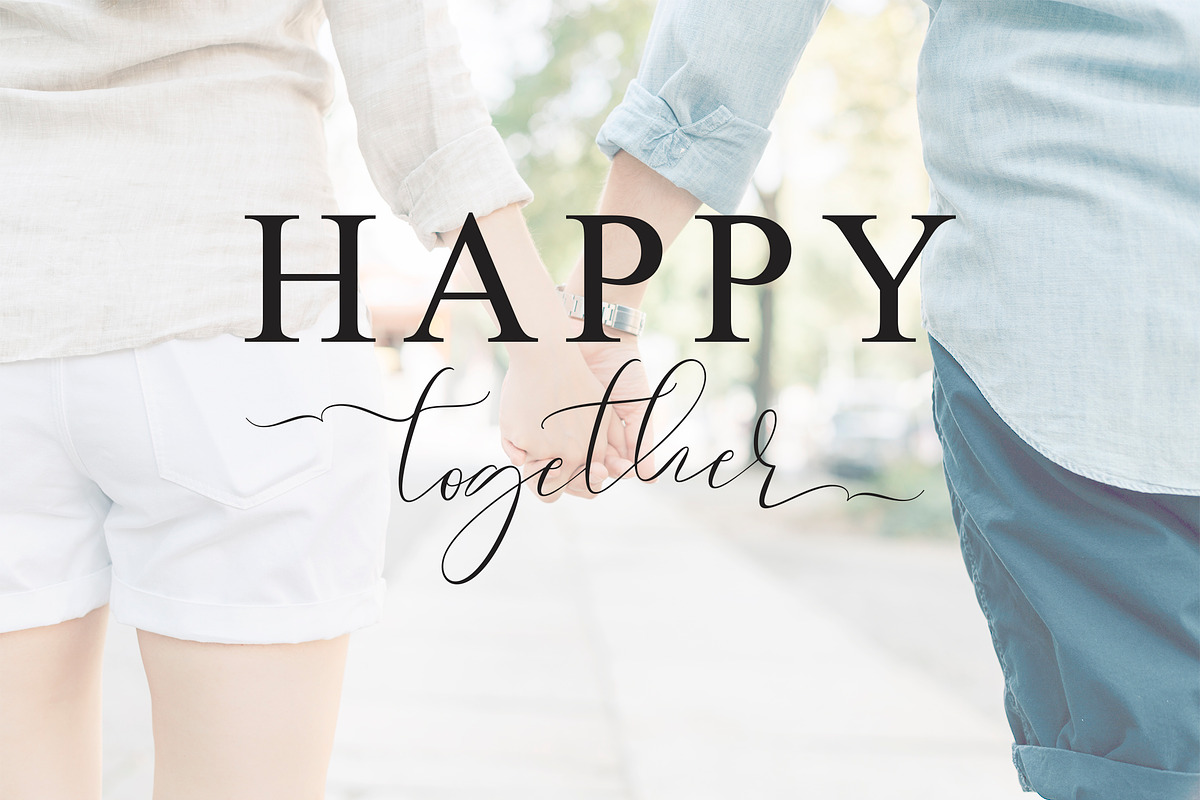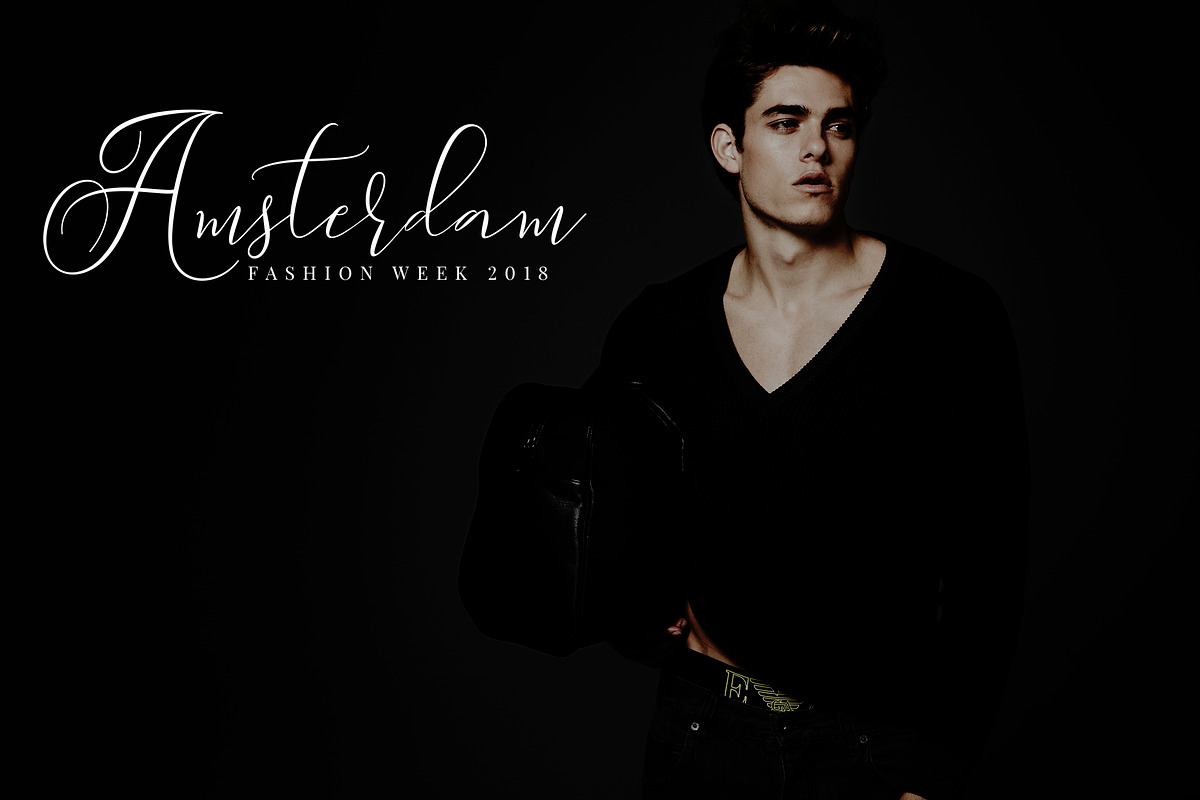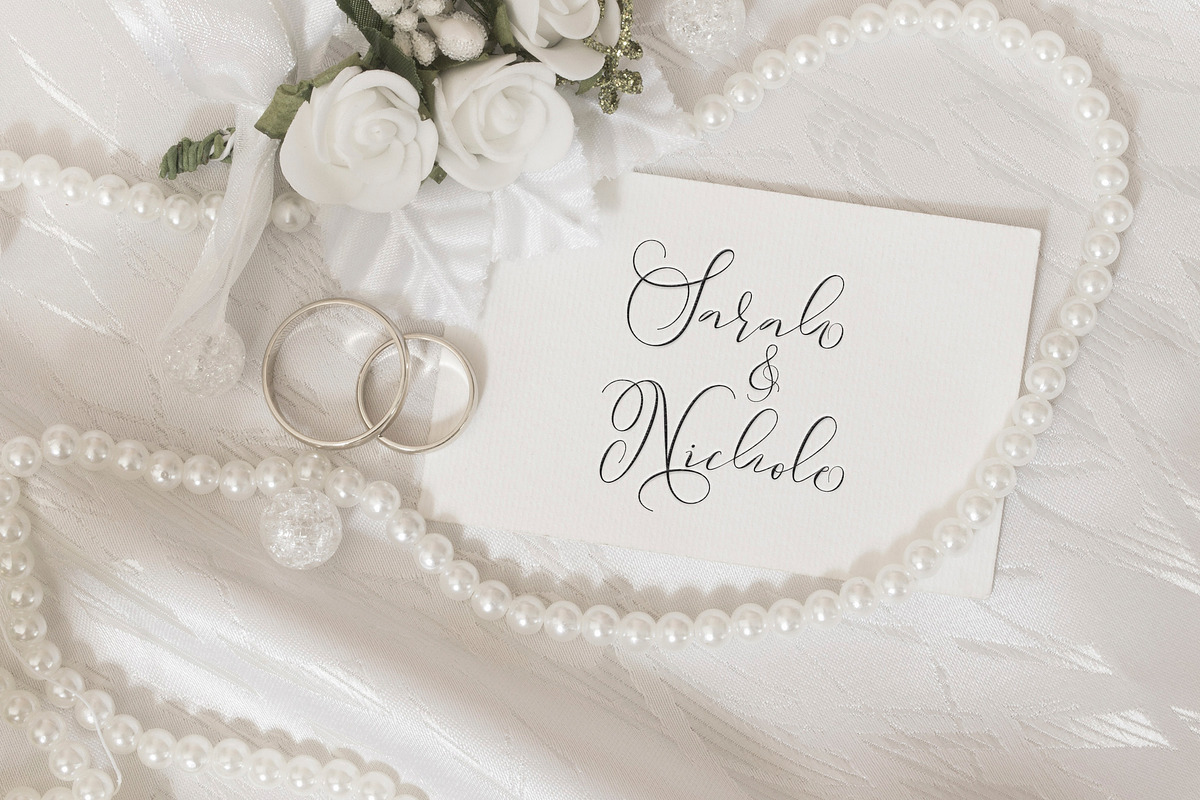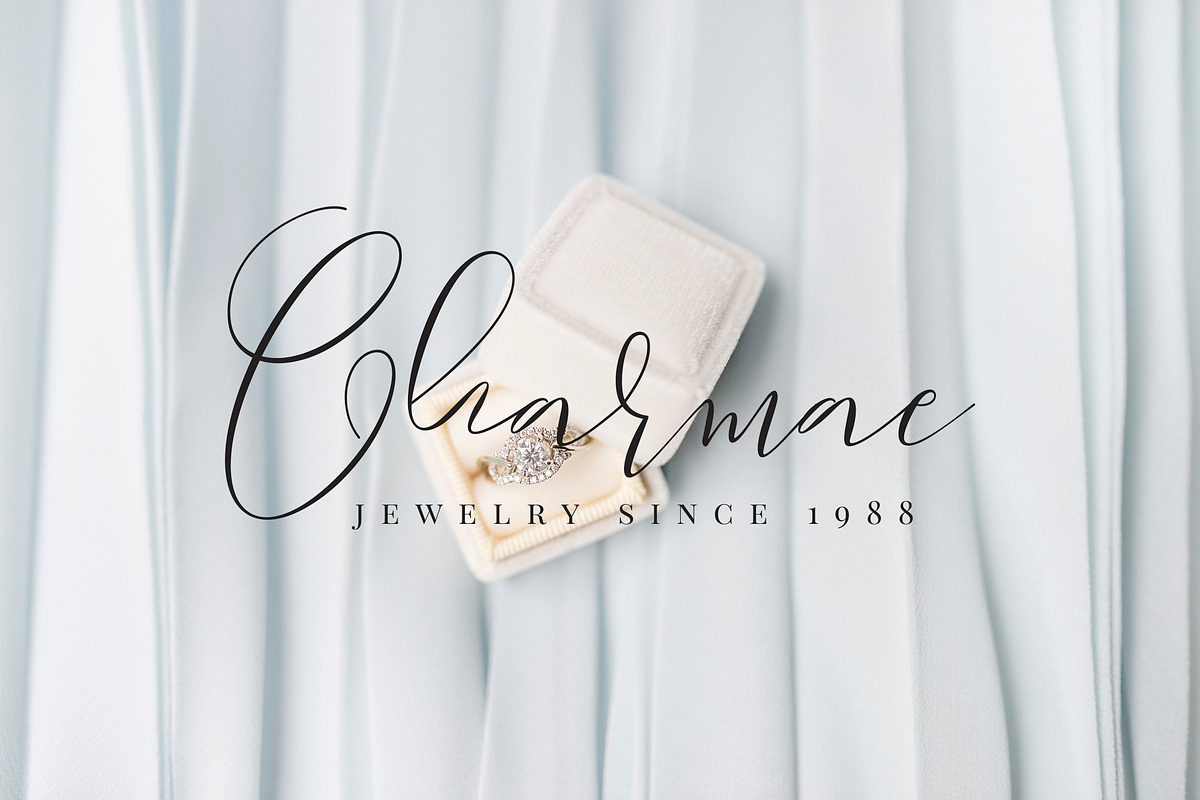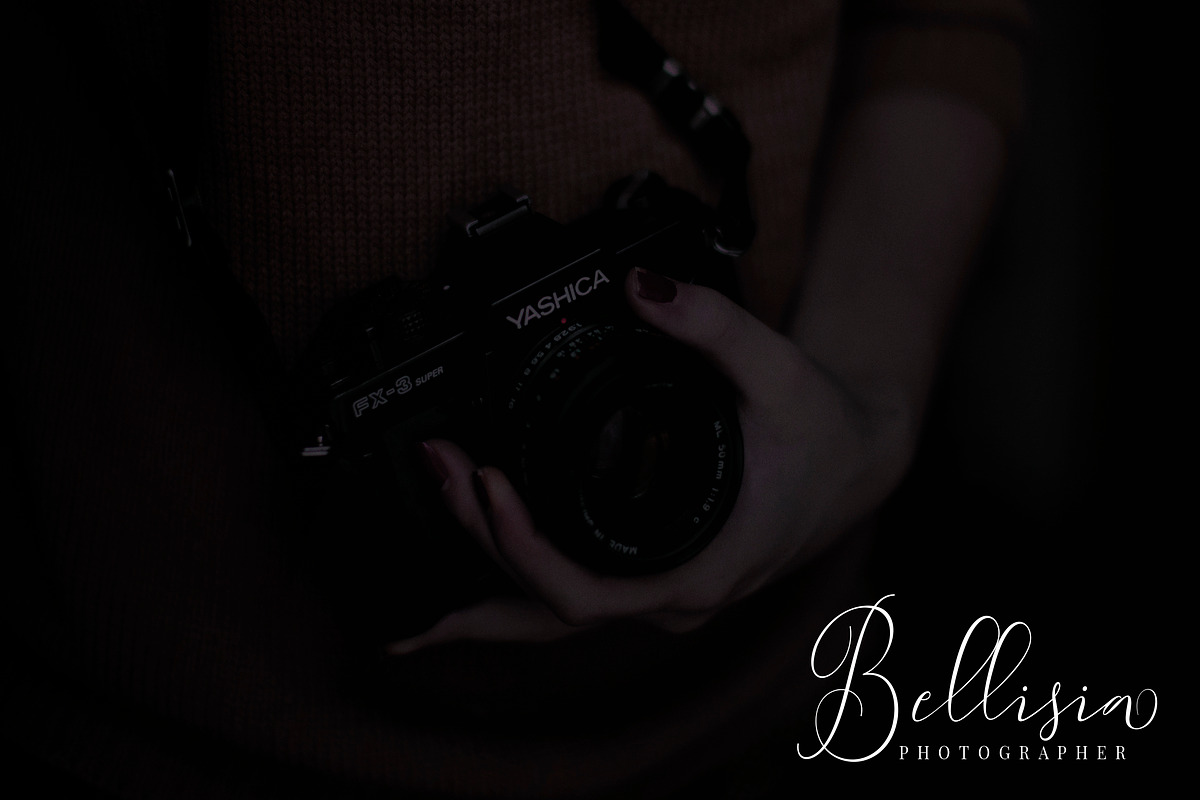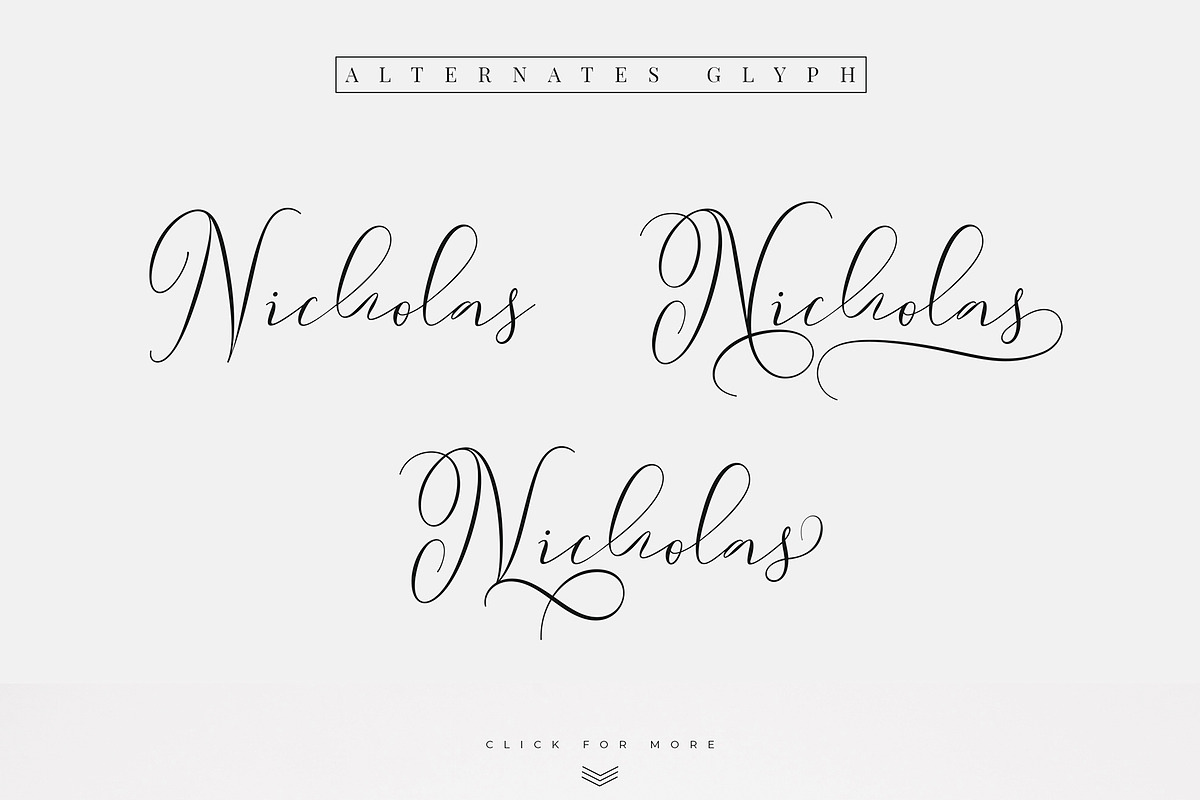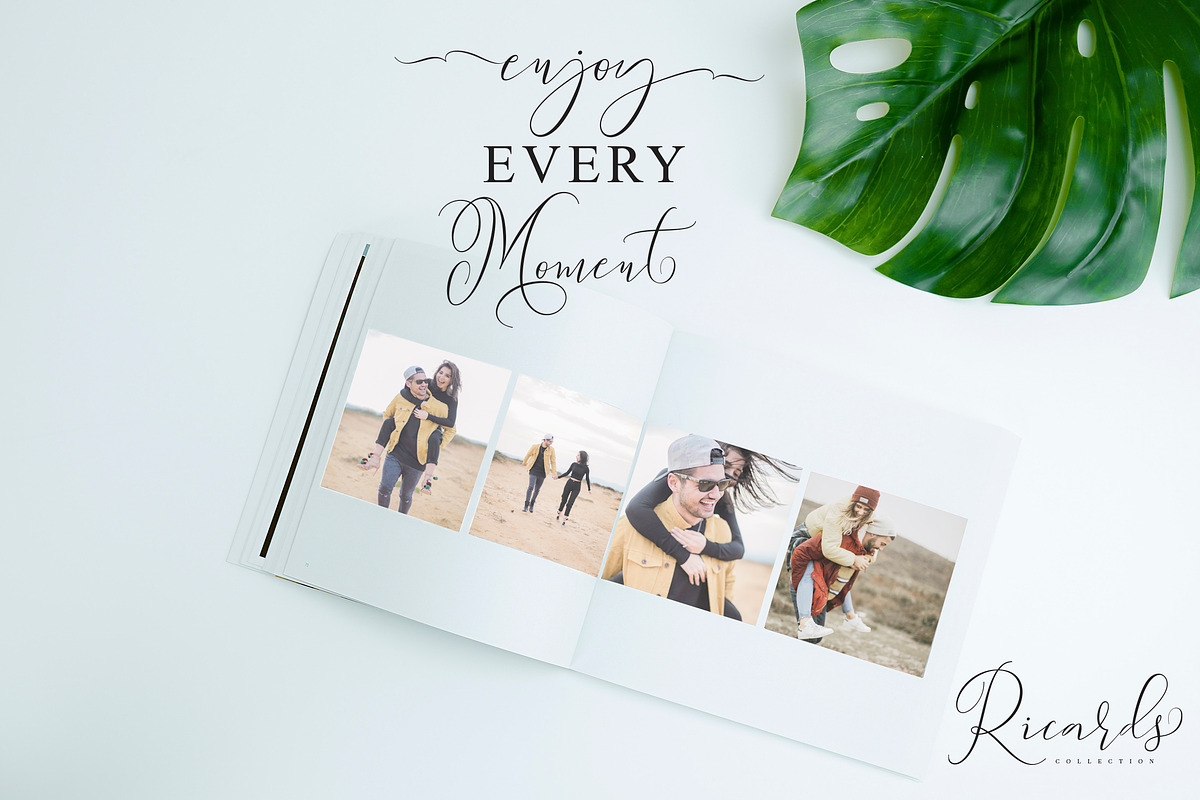
Sydnee Modern Calligraphy Font
Sydnee Script Fonts made with love, this font is very good for weddings, birthdays, cosmetic products, fashion, and other designs you want. Sydnee Script Fonts has more than 600 + + of glyph, and has 17 stylistic sets that make you very wide choice your design.
Sydnee Script Fonts features with :
Basic Glyphs, Numerals, Symbol and punctuation
Stylistic Sets 1 - 17
- Sydnee Script Fonts features with : Basic Glyphs, Numerals, Symbol and punctuation Stylistic Sets 1 - 17 Ligatures Swash Multilingual Suppor
Sydnee Modern Calligraphy Font by AQR Studio fits naturally into Branding, posters, packaging, typography.